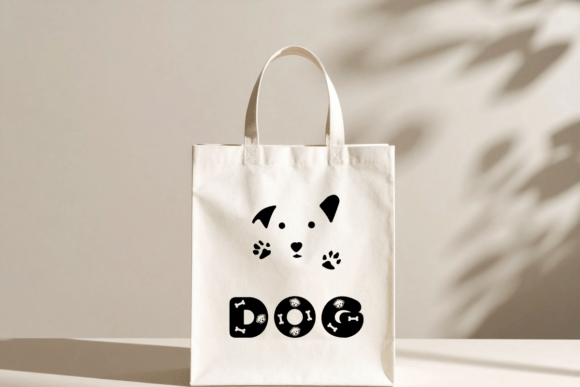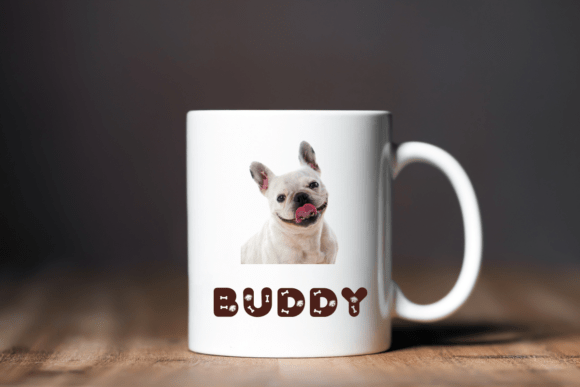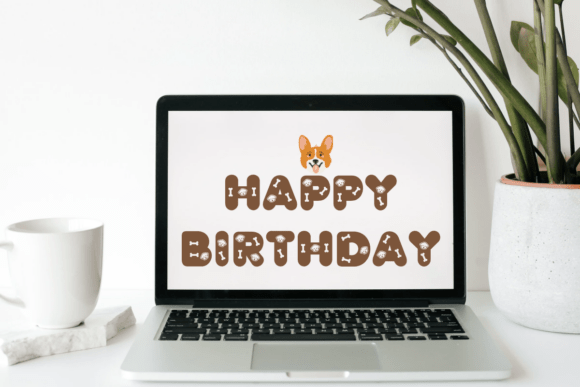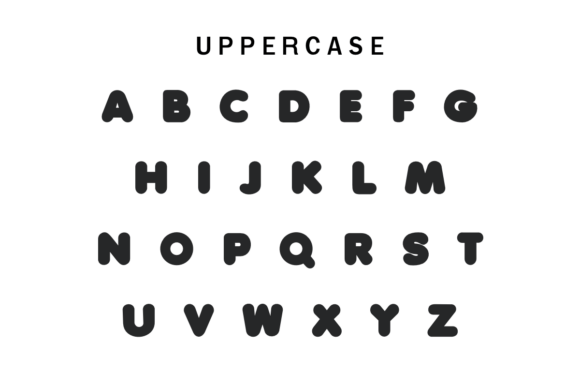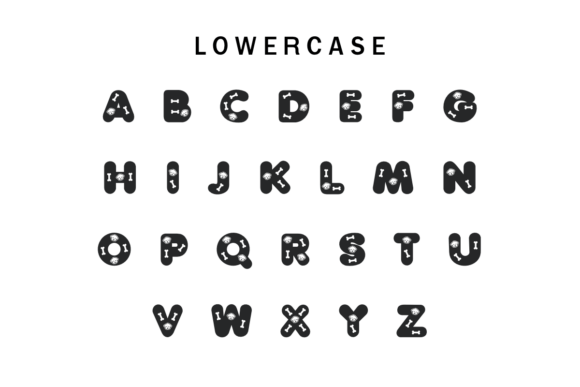
Introducing Dog Cute Font: The Paw-fect Addition to Your Pet-Friendly Designs
Are you a designer or crafter looking for a fun and playful font to add to your pet-friendly designs? Look no further than the Dog Cute Font! This adorable font is sure to bring a smile to anyone’s face, and its versatility makes it perfect for a wide range of projects.
What is Dog Cute Font?
Dog Cute Font is a decorative font that features cute and playful dog-themed characters. Each letter and symbol is designed to resemble a dog, making it the perfect addition to any pet-friendly design. Whether you’re creating a logo, signage, or social media graphics, Dog Cute Font is sure to make your design stand out.
Key Features of Dog Cute Font
- Unique and Playful Design: Each character in Dog Cute Font is carefully designed to be cute and playful, making it perfect for designs that require a fun and lighthearted touch.
- High-Quality Vector Graphics: Dog Cute Font is created using high-quality vector graphics, ensuring that it remains crisp and clear even at large sizes.
Here are a few ideas for using Dog Cute Font:
- Pet-Themed Designs: Use Dog Cute Font to create pet-themed designs, such as pet store logos, pet grooming signage, or pet adoption posters.
- Kids’ Designs: Dog Cute Font is perfect for kids’ designs, such as children’s book illustrations, kids’ party invitations, or educational materials.
- Social Media Graphics: Add a playful touch to your social media graphics, such as Facebook posts, Instagram stories, or Twitter headers.
Benefits of Using Dog Cute Font
Using Dog Cute Font in your designs can have several benefits:
- Increased Engagement: The playful and cute design of Dog Cute Font is sure to grab attention and increase engagement with your audience.
- Unique Branding: Dog Cute Font can help you establish a unique brand identity that sets you apart from others.
- Fun and Playful Touch: Dog Cute Font adds a fun and playful touch to your designs, making them more enjoyable to look at and interact with.
Tips and Tricks for Using Dog Cute Font
Here are a few tips and tricks for getting the most out of Dog Cute Font:
- Use it Sparingly: While Dog Cute Font is cute and playful, it can be overwhelming if used too much. Use it sparingly to add a touch of whimsy to your designs.
- Pair it with Other Fonts: Dog Cute Font pairs well with other fonts, such as sans-serif fonts or script fonts. Experiment with different font combinations to find the perfect look for your design.
- Experiment with Colors: Dog Cute Font looks great in a variety of colors, from bright and bold to pastel and soft. Experiment with different colors to find the perfect look for your design.